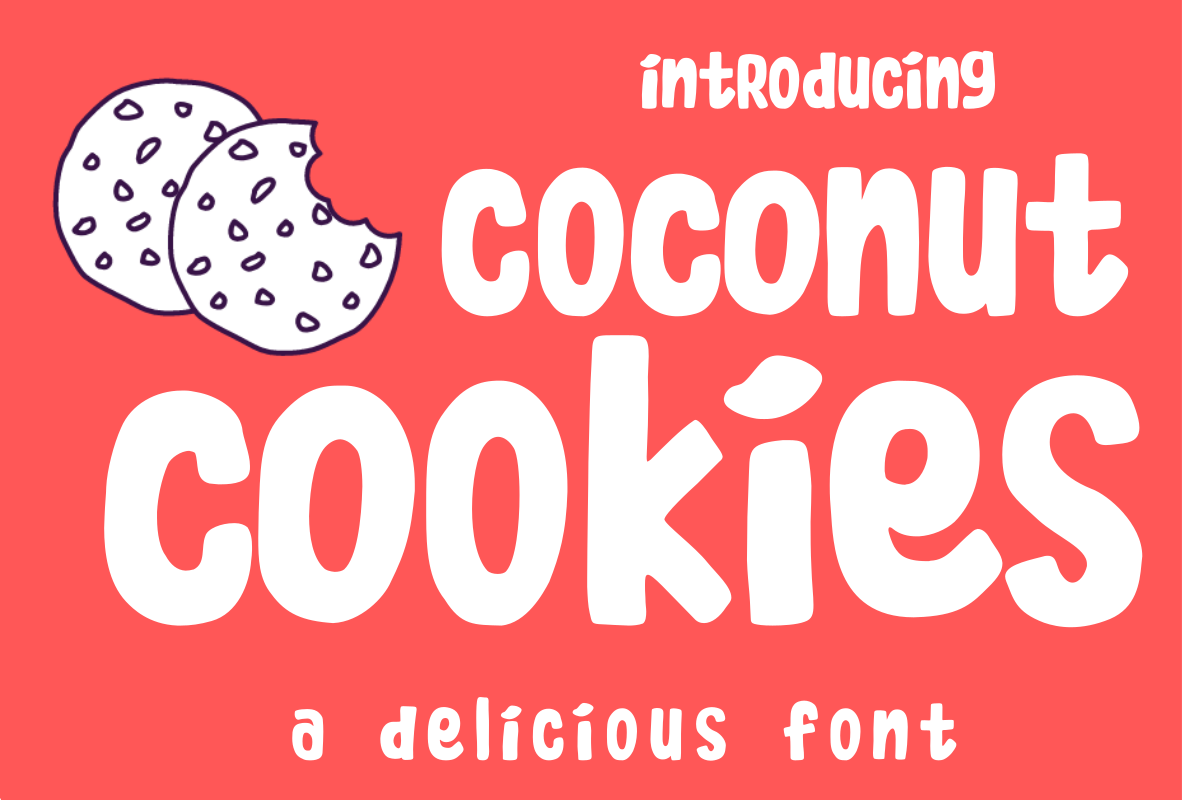
Coconut Cookies
Coconut Cookies  is a fun & quirky font. Alternate uppercase and lowercase letters are available for you to create "natural handdrawn-words" looks!
Multilingual accent characters included.